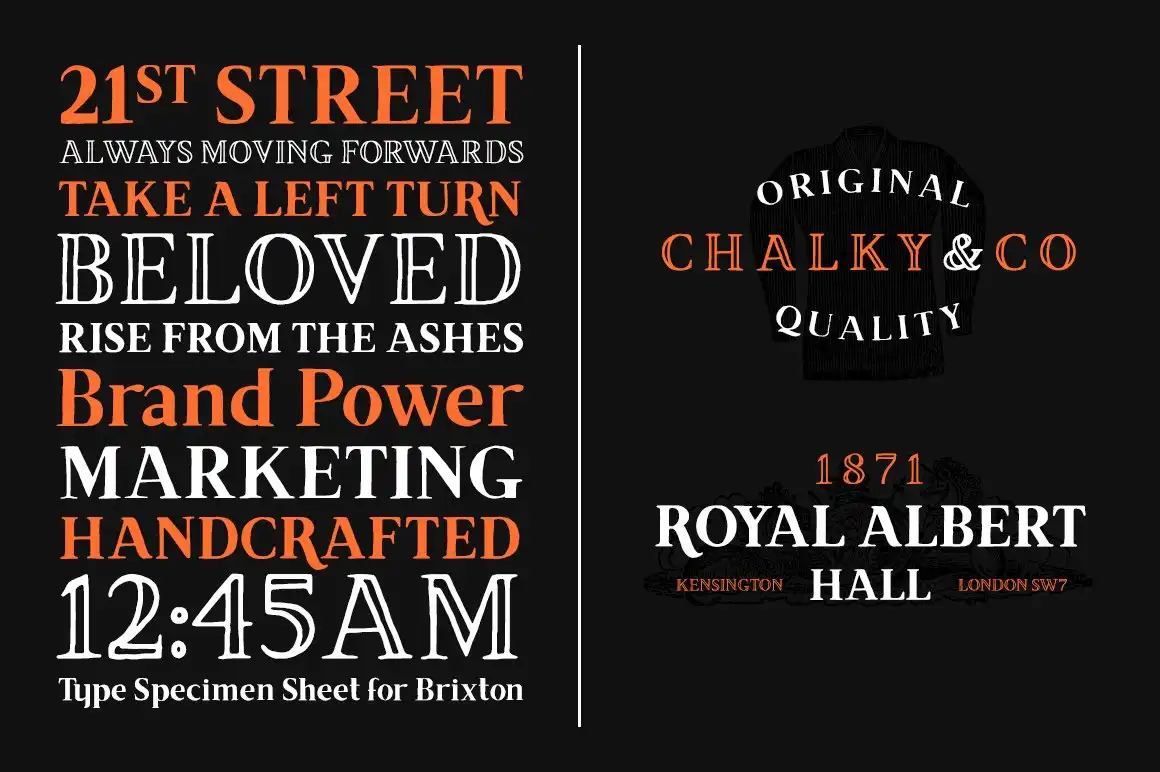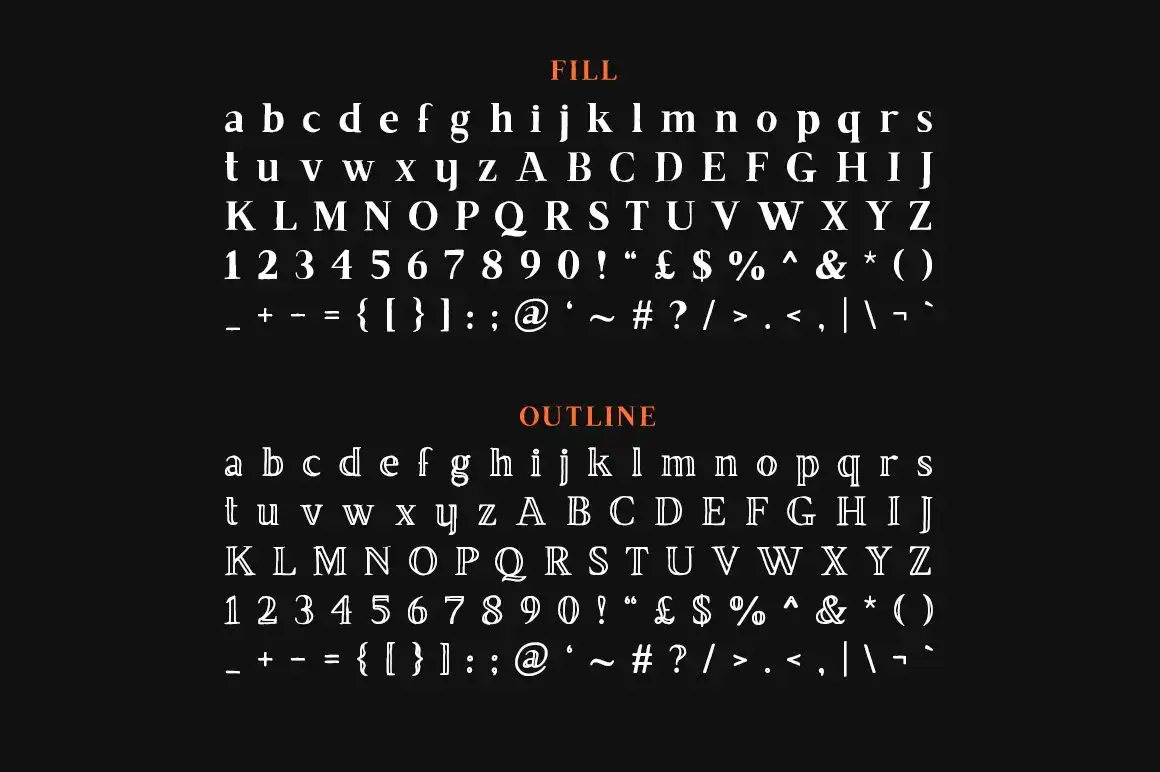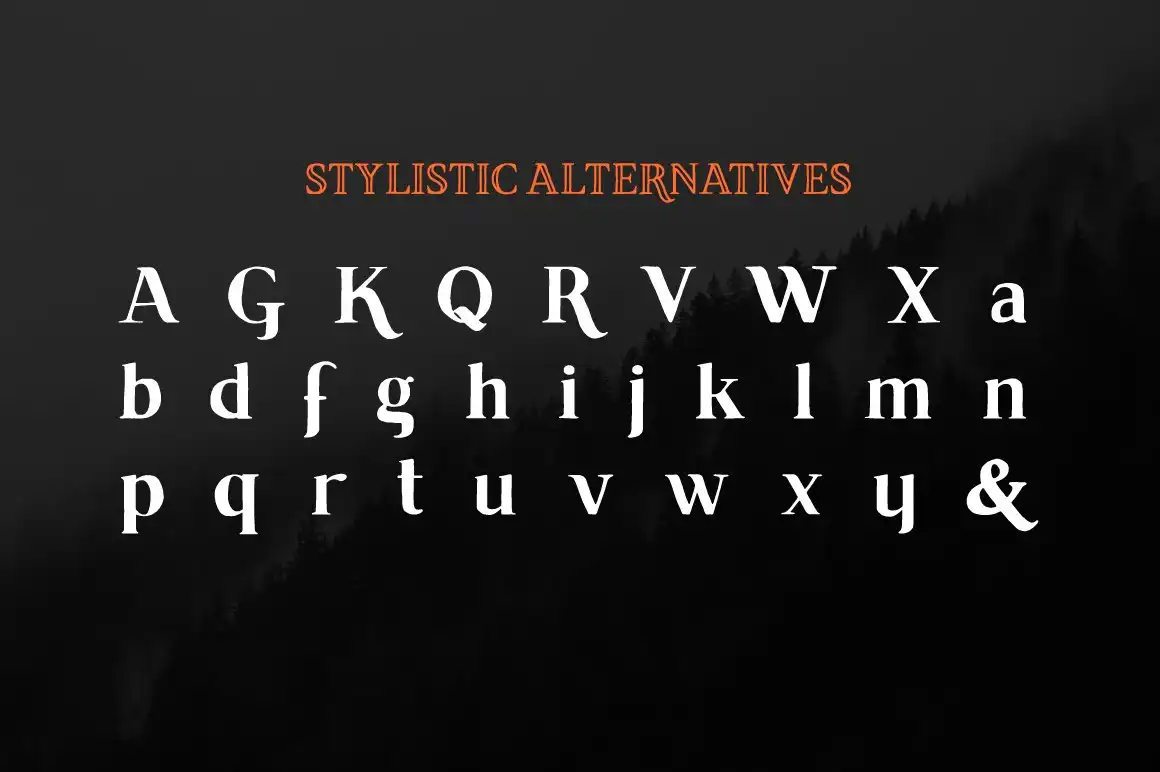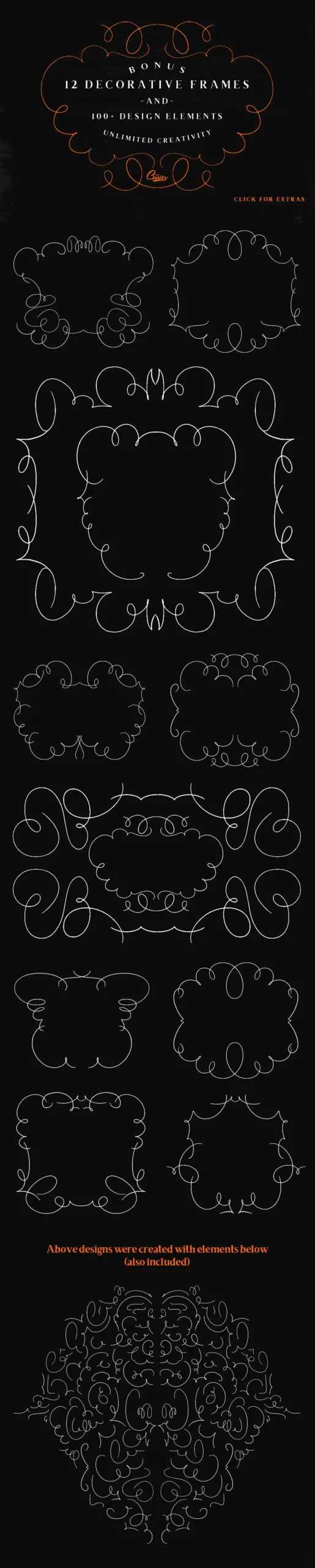
Welcome to Brixton (6 Fonts + Extras!)
Are you ready to add a touch of elegance and creativity to your designs? The Brixton font family is here to inspire! This delightful digital download features a handcrafted collection of fonts that you can access instantly. Perfect for all your creative projects, Brixton is designed to make your work shine! 🌟
Brixton is a unique and timeless font family that comes in three stunning weights: light, regular, and bold, complete with outline versions for each! To elevate your design experience, we’ve also included 12 exquisite decorative frames and over 100 handcrafted swirls and curls. Whether you’re working on a vintage logo or eye-catching packaging, Brixton is the perfect companion for your creative journey.
- Three Weights: Light, Regular, and Bold versions provide versatility for any project.
- Outline Variants: Each weight comes with an outline version, allowing for unique design combinations.
- Decorative Frames: 12 beautifully crafted frames to enhance your projects.
- Handcrafted Elements: Over 100 swirls and curls for added flair in your designs.
- Multilingual Glyph Set: Supports multiple languages, making it accessible for a global audience.
- Stylistic Alternatives for each font
This font family is ideal for graphic designers, branding specialists, and anyone looking to create stunning visuals. Whether you’re crafting a logo, designing a poster, or working on packaging, Brixton will add a sophisticated touch to your projects. 🎨